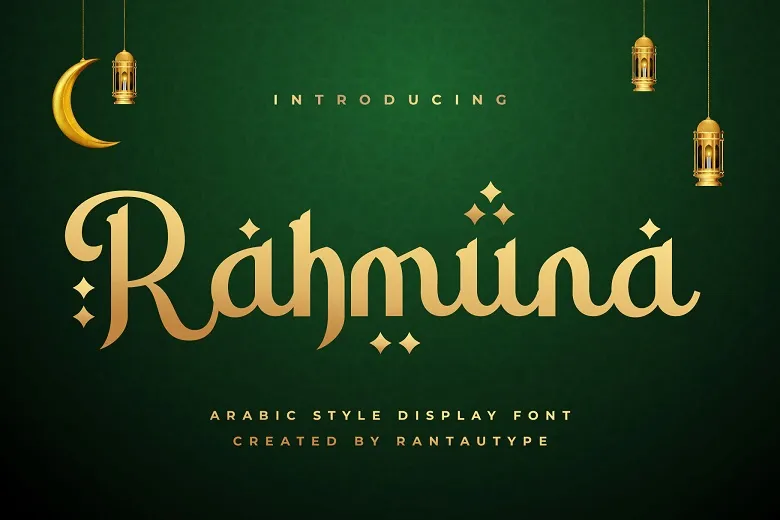
Rahmuna Font is a beautiful display Arabic font created to add the aesthetics of the Arabic calligraphy to the new world of digital typography. This particular font will give a typical Arabic perception to each and every text that you enter. Thus, this font will remain humanistic, elegant, luxurious, premium and modern, catchy and easy to read. Rahmuna also has extras and is multilingual accent enabled.